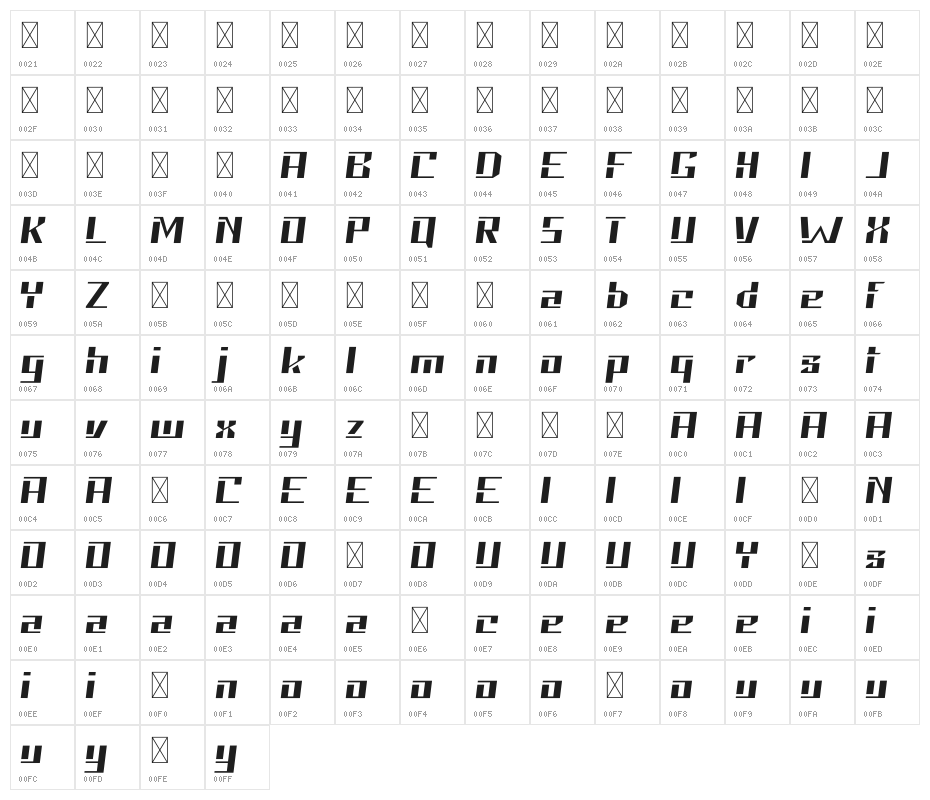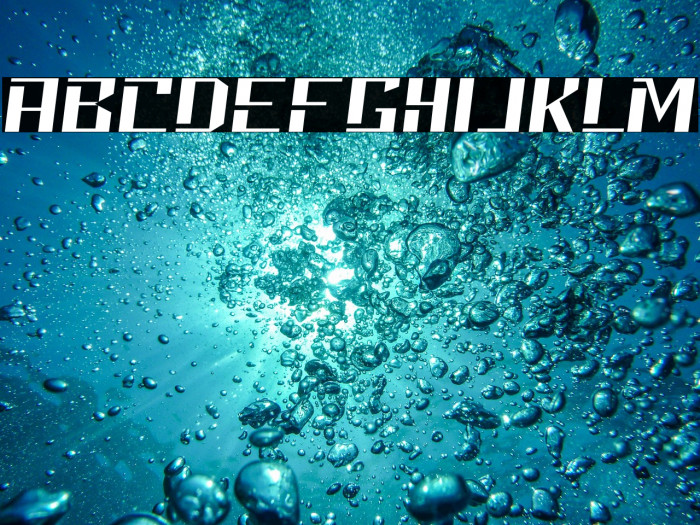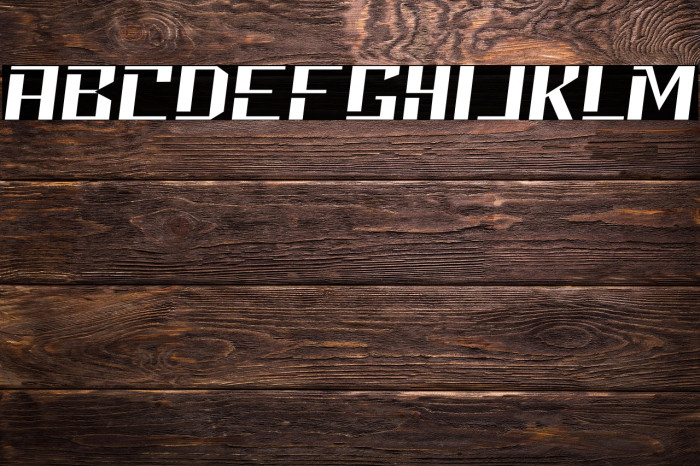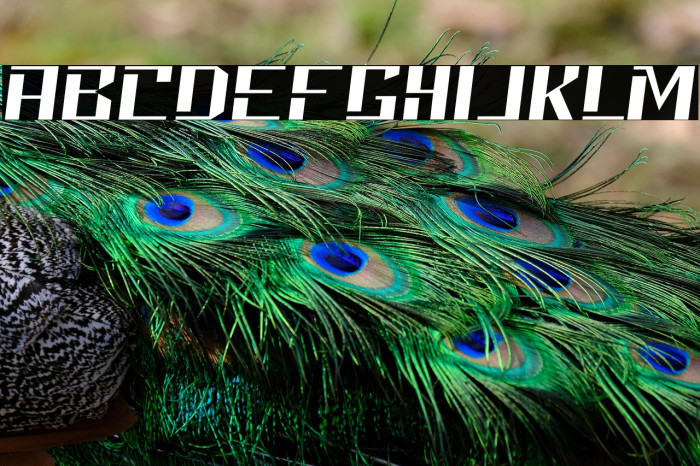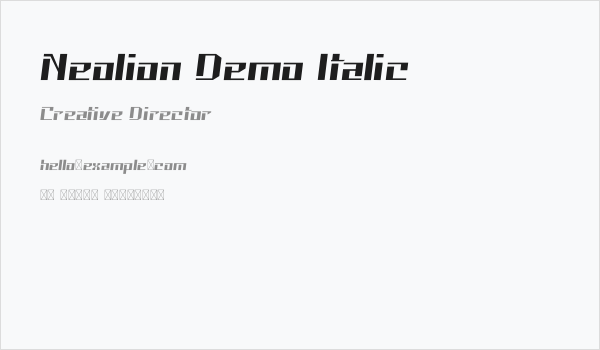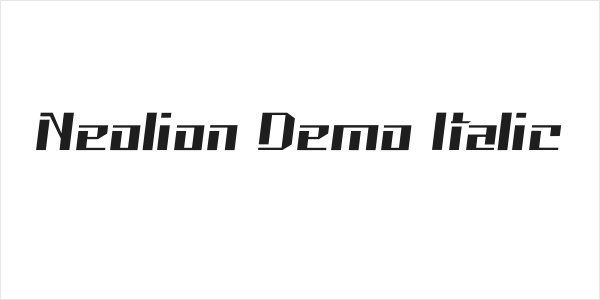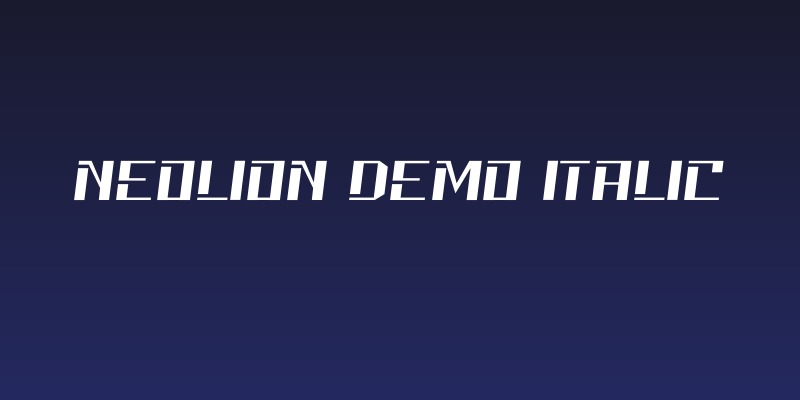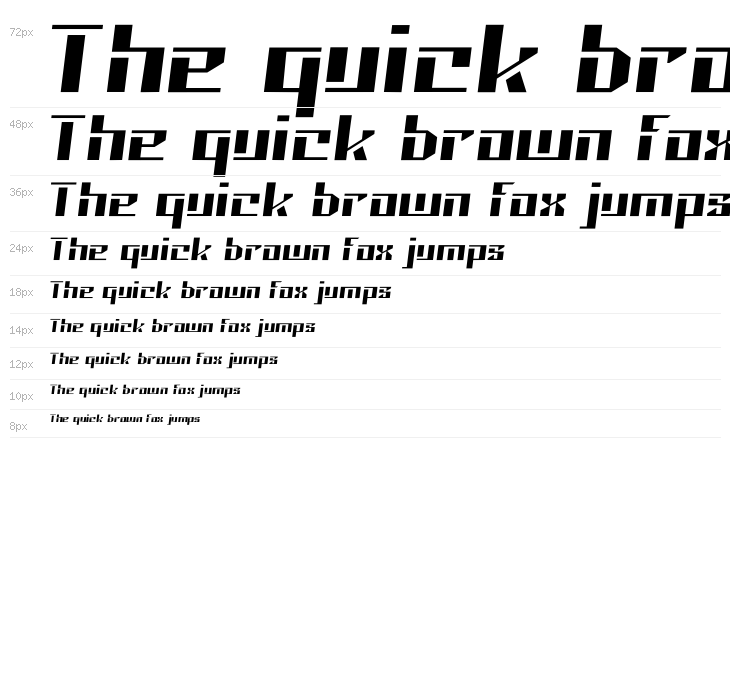
Neolion Demo Italic Font
Neolion Demo Italic Description
This font features a bold and angular design with a distinct italic slant, giving it a dynamic and futuristic appearance. The characters are constructed with sharp edges and geometric forms, creating a sense of movement and energy. The uppercase and lowercase letters maintain a consistent style, with the lowercase being slightly more compact. The absence of traditional curves and the emphasis on straight lines and angles contribute to its modern and edgy look. The font is well-suited for projects that require a strong visual impact and a contemporary aesthetic.
| Proposed Projects | Ideal for sci-fi themed designs, technology branding, video game titles, and modern advertising. |